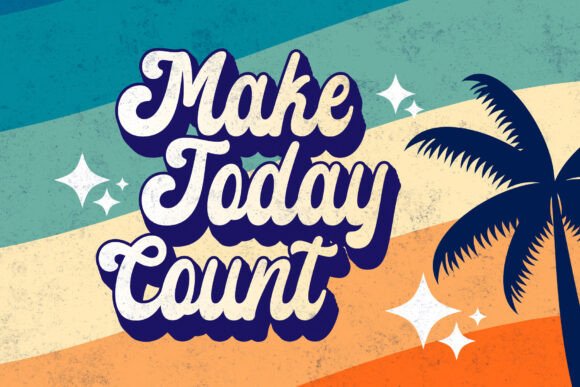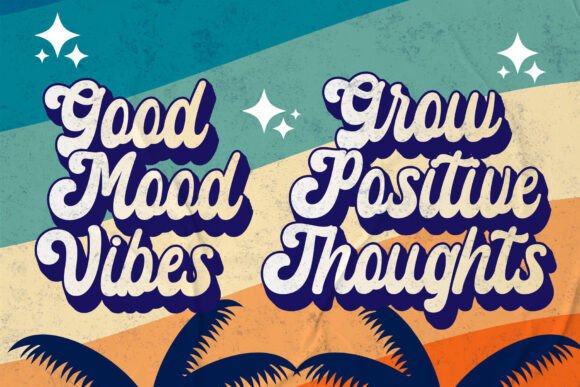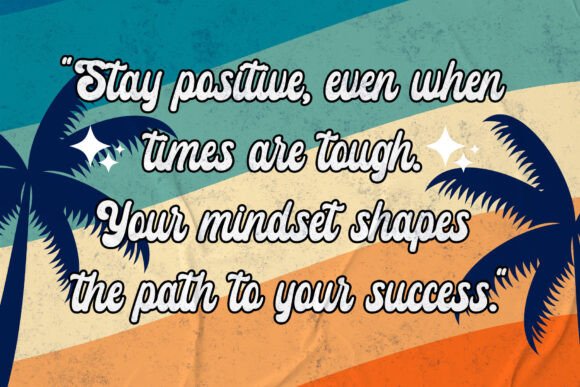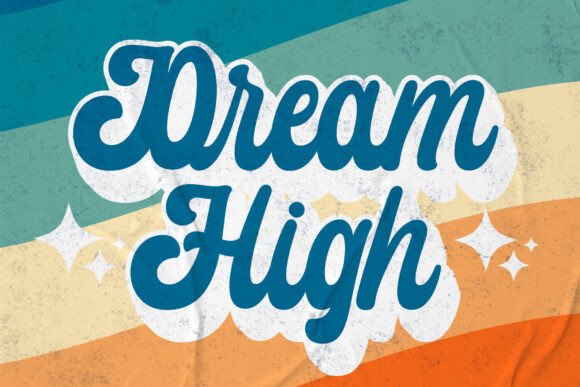
Introduction to Groovy Boho Font
Groovy Boho is a cool, vintage-style handwritten font.
Use it to add that special retro touch and bold to any design idea It can be used for logos, branding, invitations, stationery, wedding designs, social media posts, and much more.
Key Features of Groovy Boho Font
Why Choose Groovy Boho Font?
Groovy Boho Font offers exceptional quality and versatility, making it a valuable addition to your design toolkit. Whether you’re creating for personal projects or commercial use, Groovy Boho Font delivers professional results.